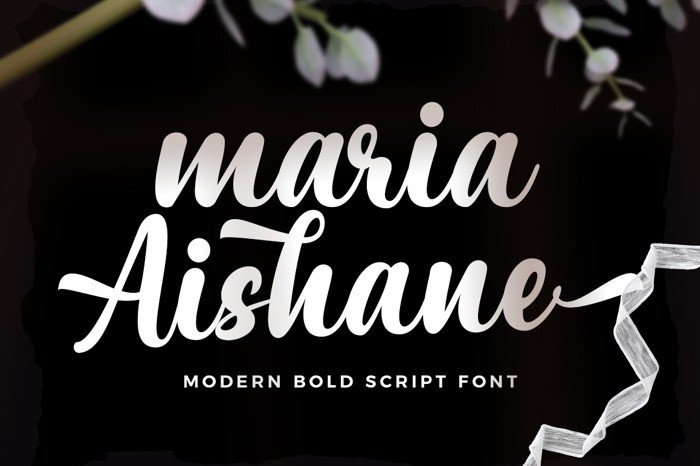
Maria Aishane Script Font
Maria Aishane Script Font is an elegant script with a contemporary atmosphere and impeccable form, inspired by timeless classic calligraphy. Not too thin and not too thick, balanced and varied, born to luxury and beauty. make your designs beautiful and look great.
This Font includes all the basic characters and additional and alternative Latin characters, nice fonts for your invitation. Maria Aishane Script Font is just a simple typeface, all uppercase, lowercase letters, and only includes all the basic characters, numbers and punctuation.
It is perfect for logo, greetings, branding, quotes, prints, invitations and crafting. All lowercase letters include alternates, beginning & end swashes, that makes the font look fabulous!